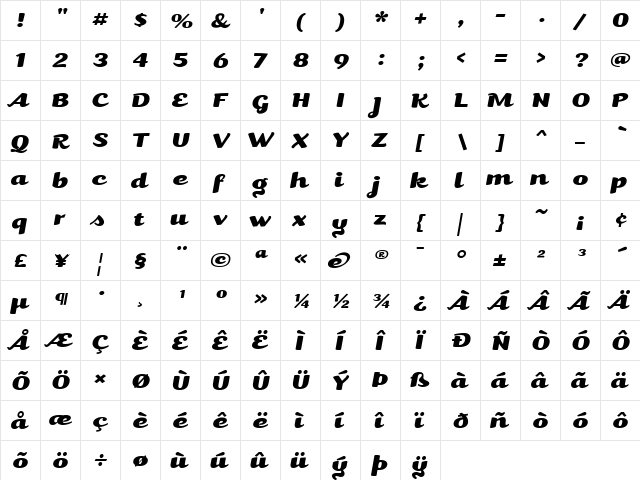
Kari Wide Pro Italic
| Foundry | Neil Summerour and Positype |
| Designer | Neil Summerour |
Design Context for Kari Wide Pro Typeface
Kari Wide Pro offers clean, dependable letterforms without strong stylistic allegiance, making it a practical choice for designers who need flexibility. The slanted form adds forward momentum and visual energy.
Pro Tip: Use Kari Wide Pro for emphasis, pull quotes, and subheadings where its slanted energy can add rhythm to the layout.